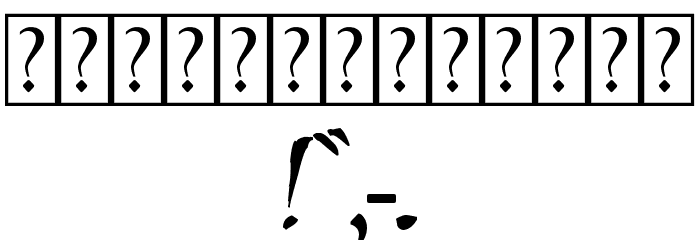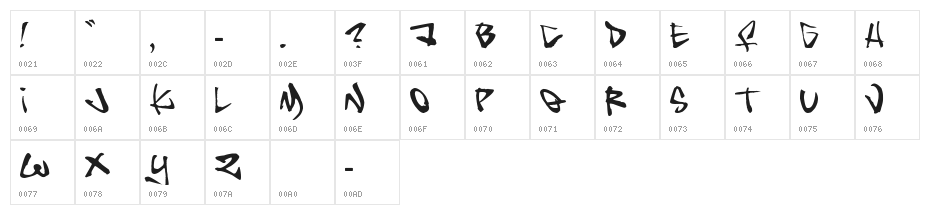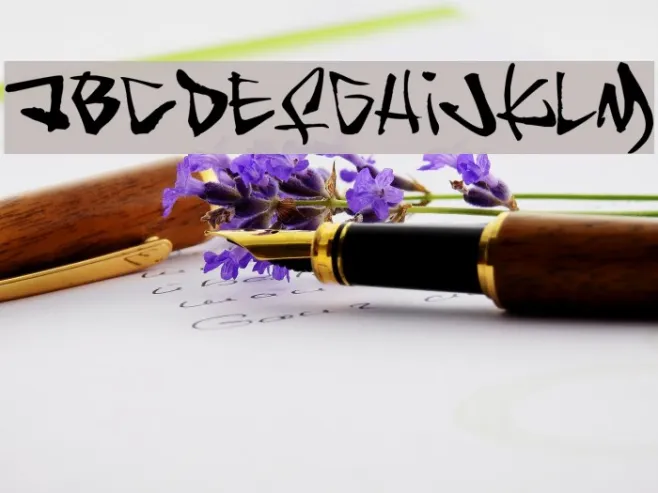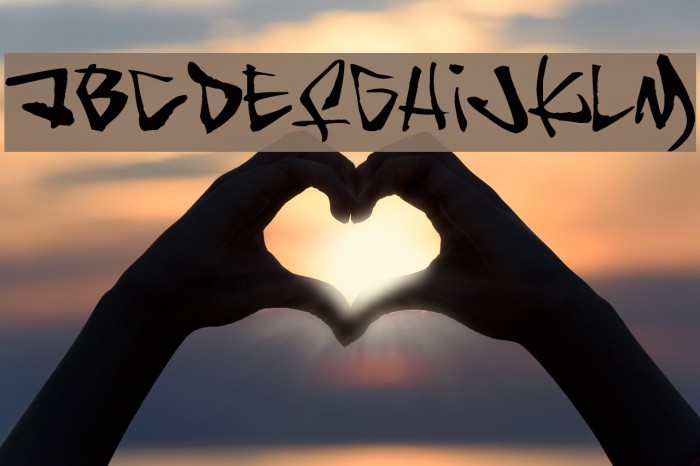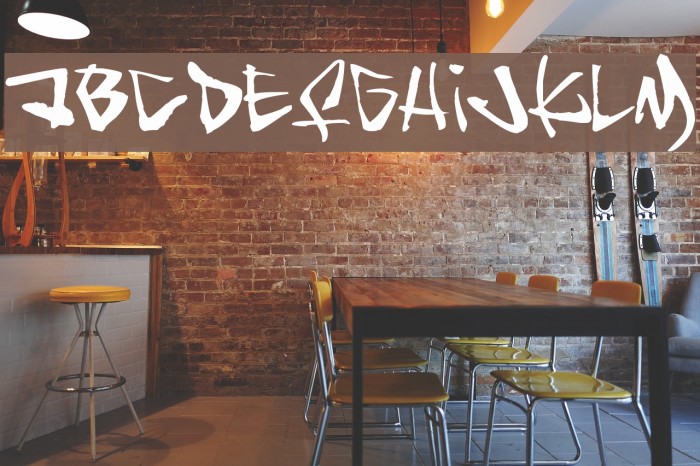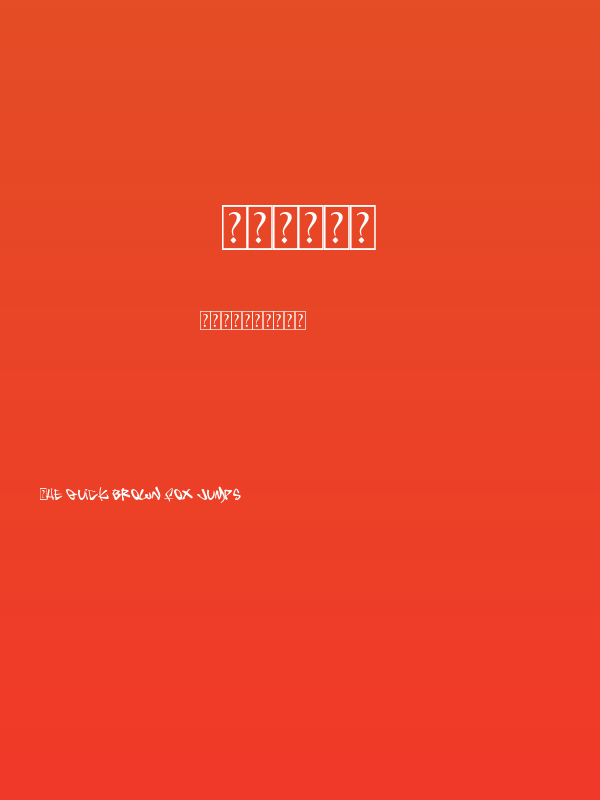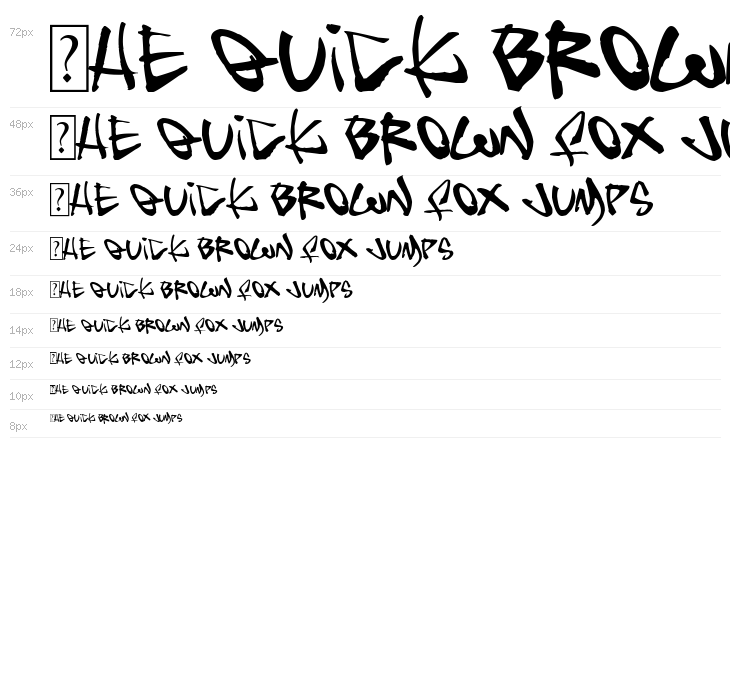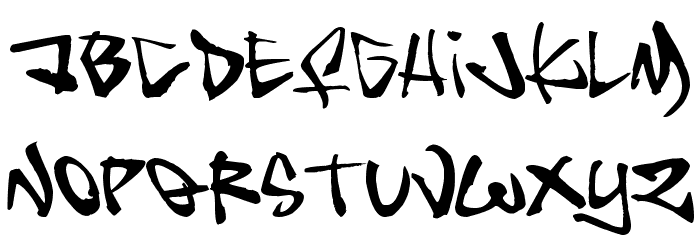
Insane Font
Insane Description
This font features a bold and expressive style with a graffiti-like appearance. The uppercase letters are characterized by thick, dynamic strokes that give a sense of movement and energy. The overall design is highly decorative, with each letter having unique, artistic flair. The font lacks lowercase letters and numbers, focusing solely on uppercase characters and a few punctuation marks. The style is reminiscent of street art, making it ideal for projects that require a bold and unconventional look.
| Use Case | Logos, Headlines |
| Proposed Projects | Ideal for street art designs, urban-themed posters, music album covers, and edgy branding projects. |